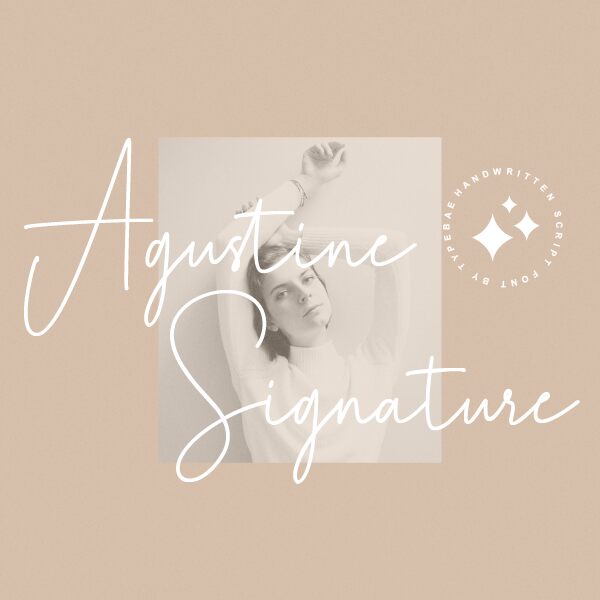
Agustine Signature
Agustine Signature font by Typebae Foundry is a cursive light-weight handwritten font with an elegant and flowing design. This graceful typeface features sophisticated characters with a modern aesthetic and artistic flair that puts together an exquisite appearance perfect for branding projects and more.